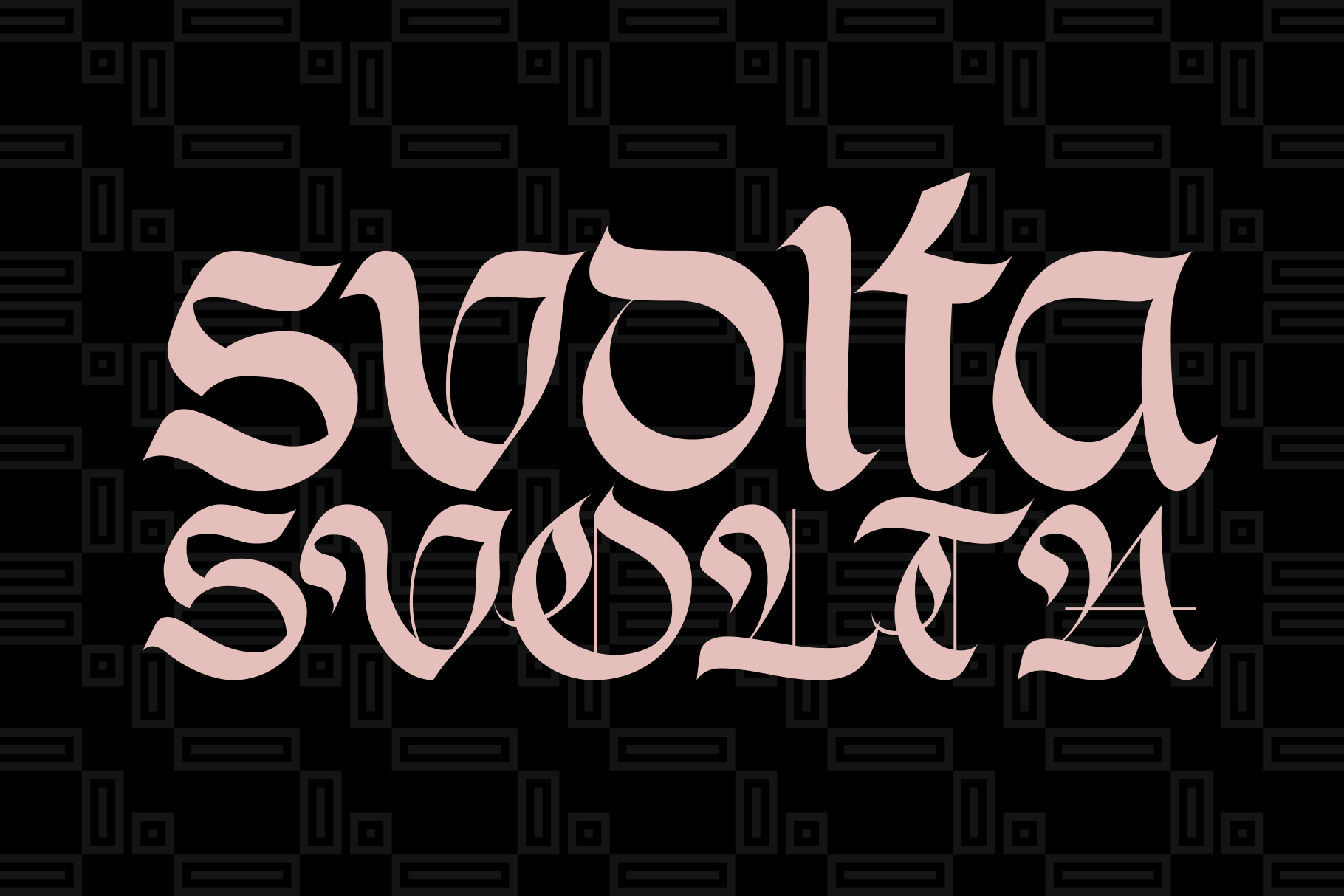
Svolta – Font Family Duo
SVOLTA is a font family designed by Stefano Giliberti — each character handwritten on paper to form something truly unreplicable, a reinterpretation and celebration of blackletter Germanic typefaces. But its uniqueness goes beyond its form: SVOLTA includes PARTITA, a pixel typeface aiming in the opposite direction of time, the present and future, resulting in a duo that provides personality and depth to your designs.
Used solo, or combined with its twin font, SVOLTA can lend itself to any project where standing out is of the essence: advertising, fashion, branding, posters, catalogues, artworks — its detailed, intricate and sinuous shapes hold the potential to capture attention and convey your message with authentic intensity.
SVOLTA — 117 Languages • 504 Glyphs • Italicized
PARTITA — 113 Languages • 482 Glyphs • 10 Styles